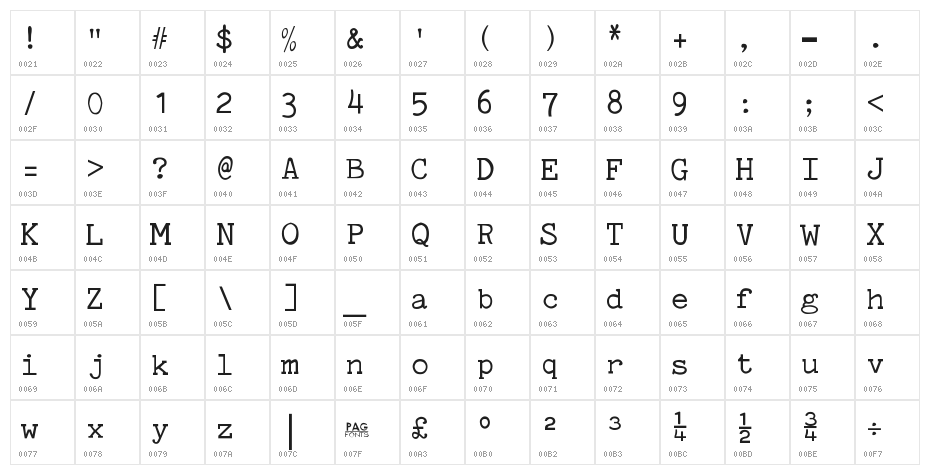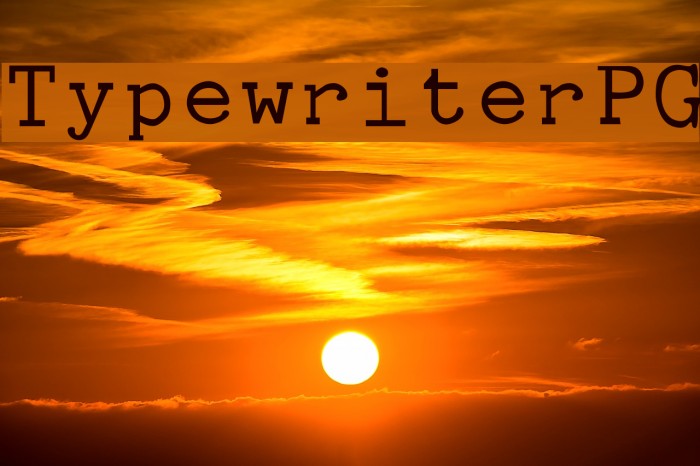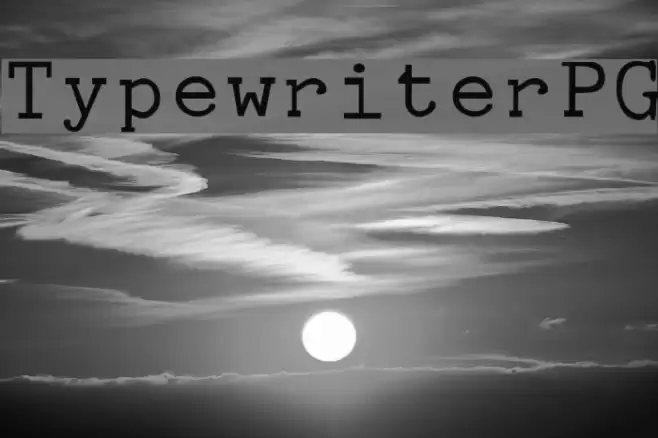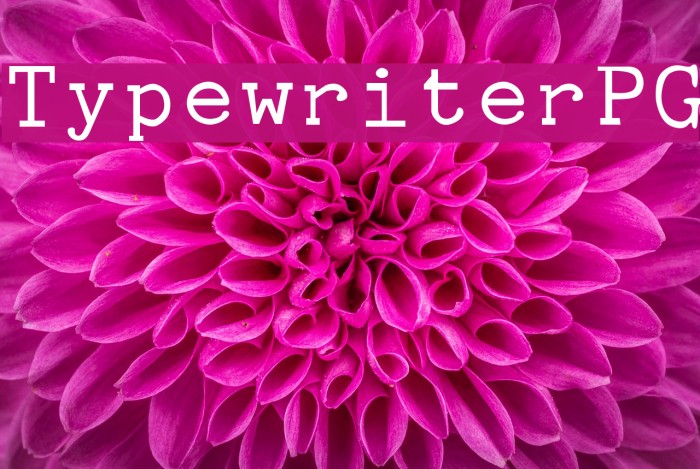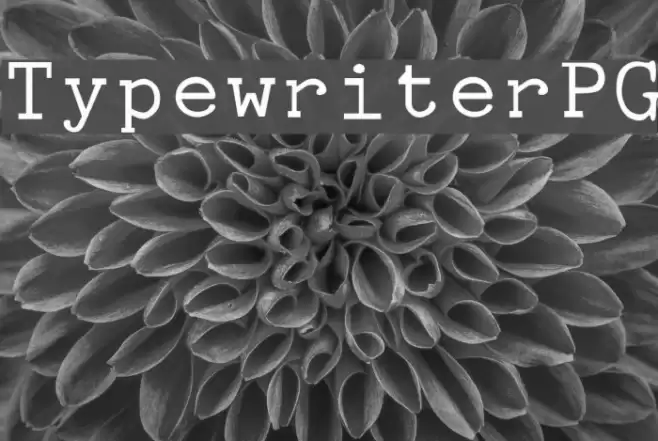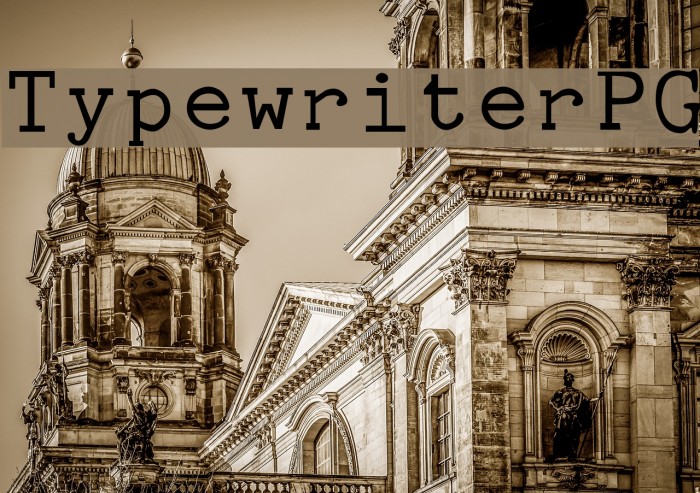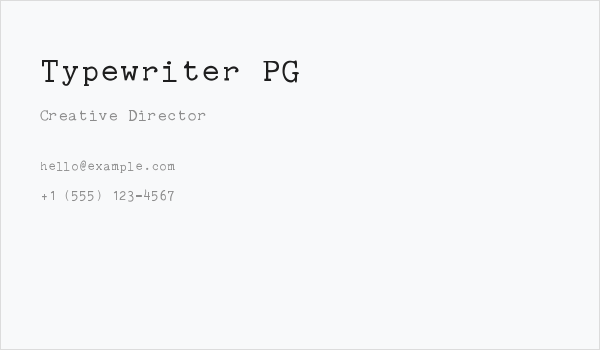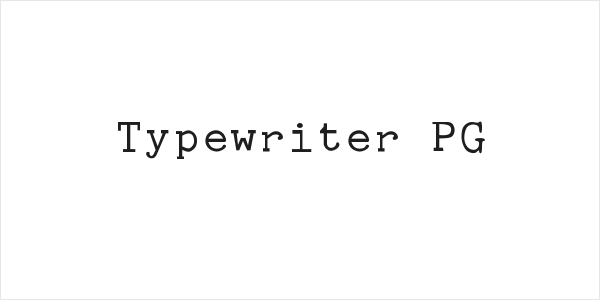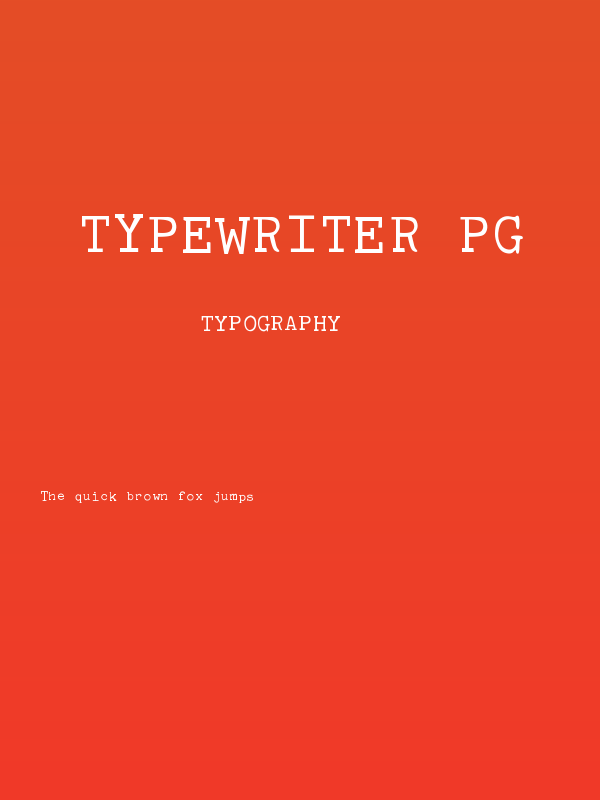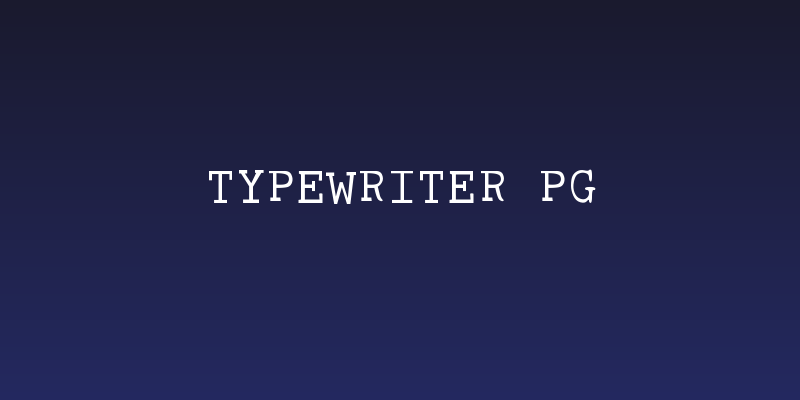
Typewriter PG Font
Typewriter PG Description
This typeface exudes a classic, vintage charm reminiscent of traditional typewriter fonts. Each character is monospaced, ensuring uniformity in width, which is a hallmark of typewriter styles. The letters are bold and clear, with a slight serif that adds a touch of elegance and readability. The numbers and punctuation marks maintain the same consistent style, making it suitable for both text and numerical data. The overall appearance is clean and straightforward, ideal for creating a retro or nostalgic feel in design projects.
| Proposed Projects | Ideal for retro-themed designs, typewriter-style documents, coding displays, and vintage branding projects. |